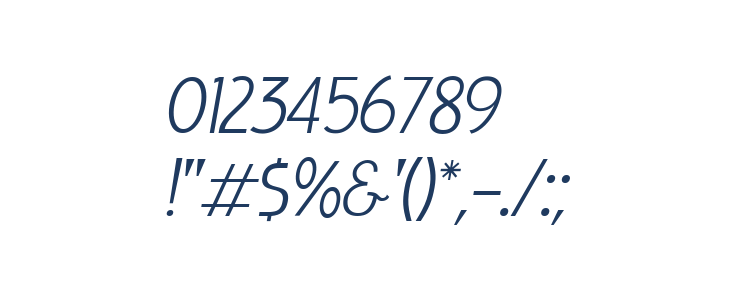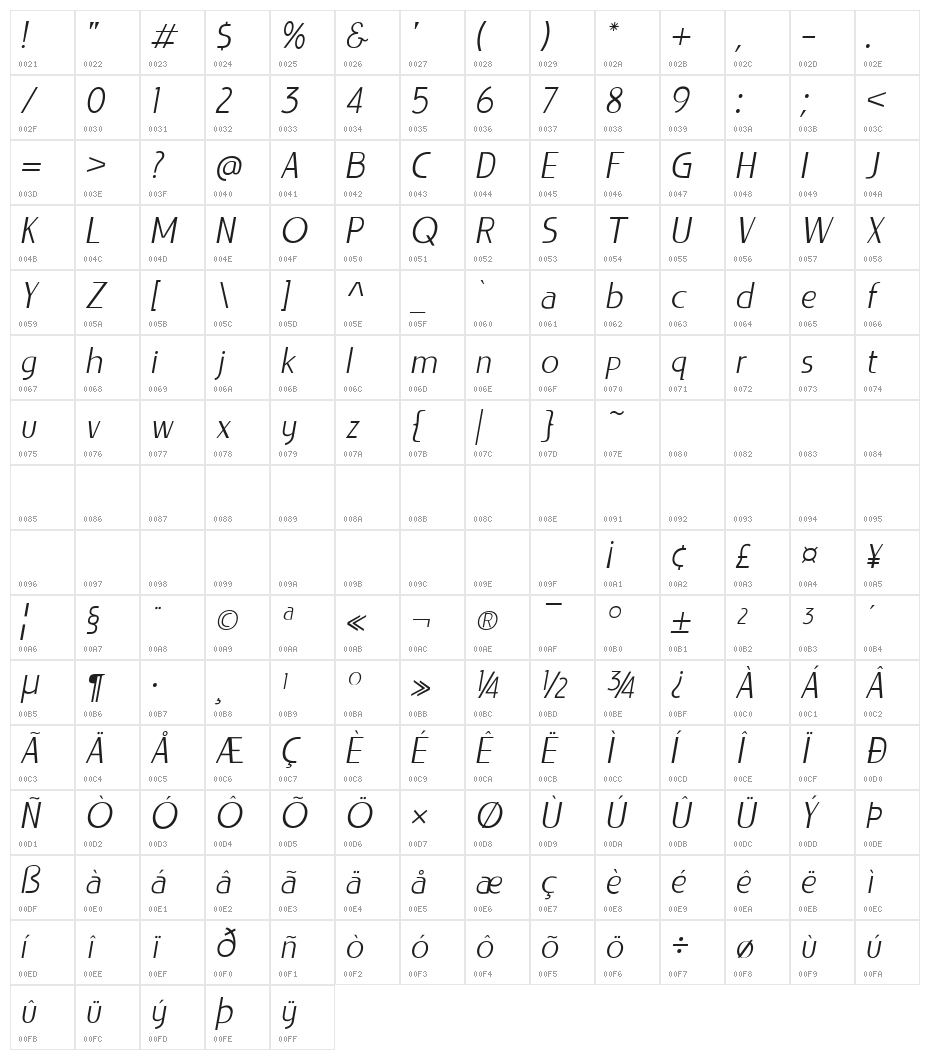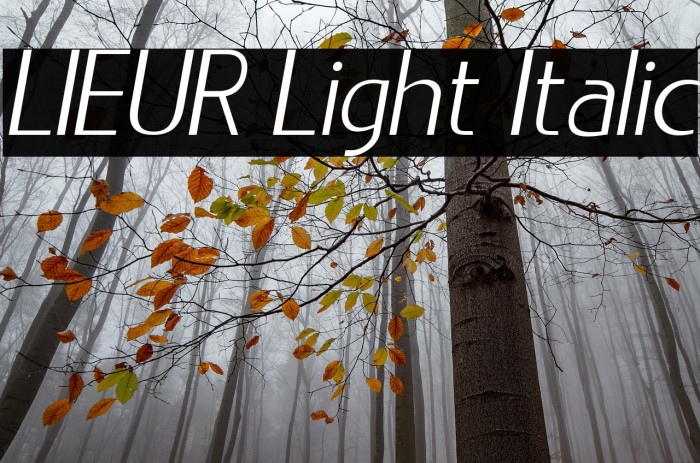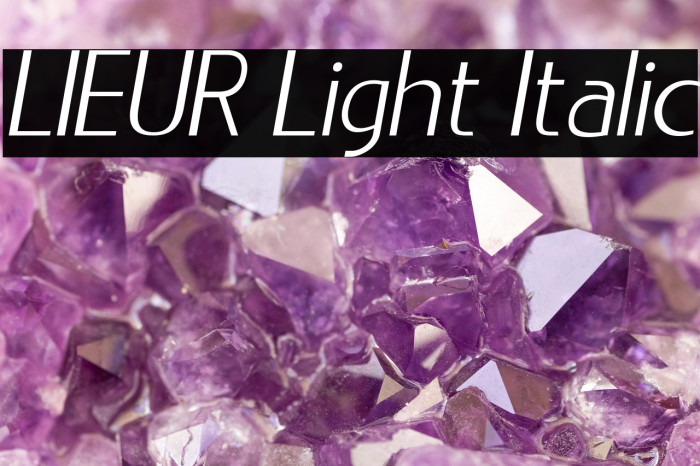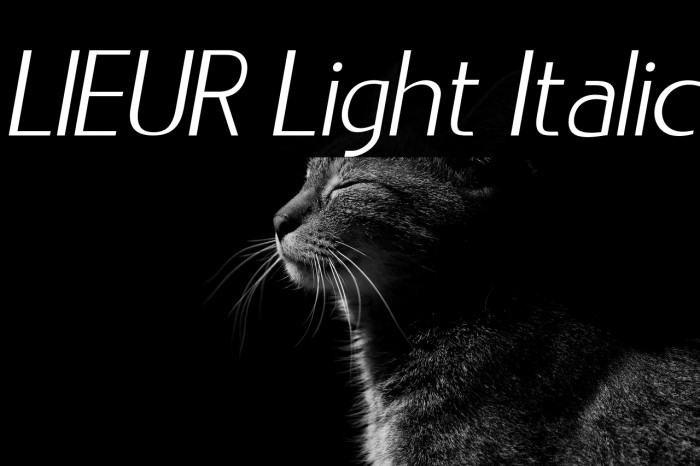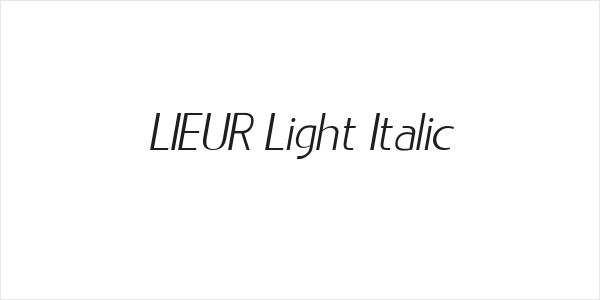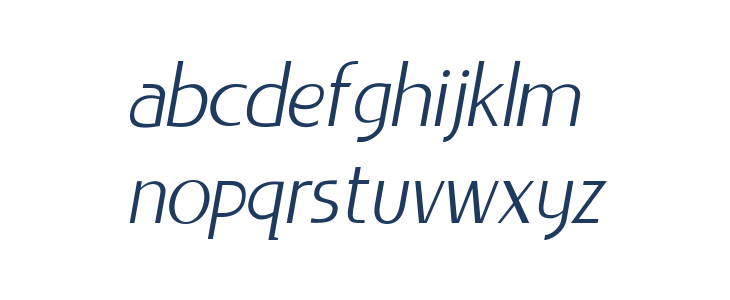
LIEUR Light Italic Font
LIEUR Light Italic Description
This font features a sleek and modern design with a light weight and italic style. The characters are elegantly slanted, giving a sense of motion and fluidity. The strokes are consistent and smooth, with a medium contrast that enhances readability while maintaining a stylish appearance. The overall look is clean and sophisticated, suitable for contemporary design projects. The character spacing is normal, allowing for clear legibility in both large and small sizes. This font is versatile, making it ideal for a variety of applications.